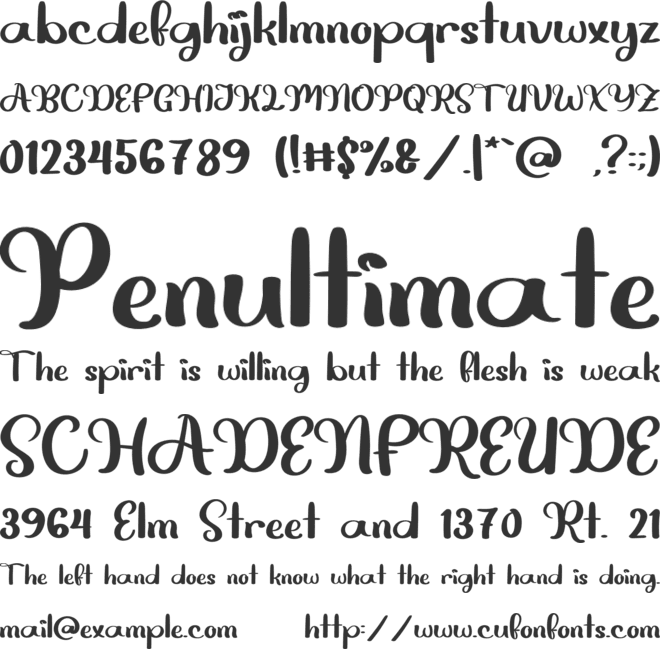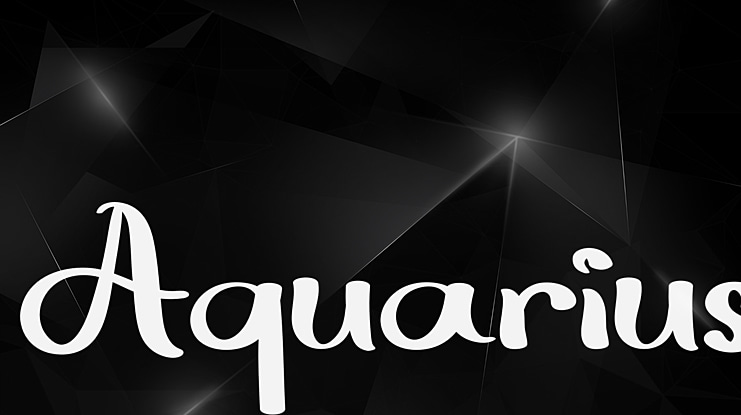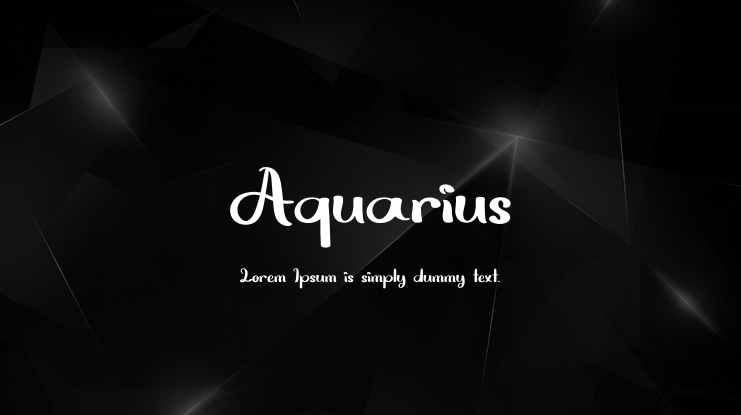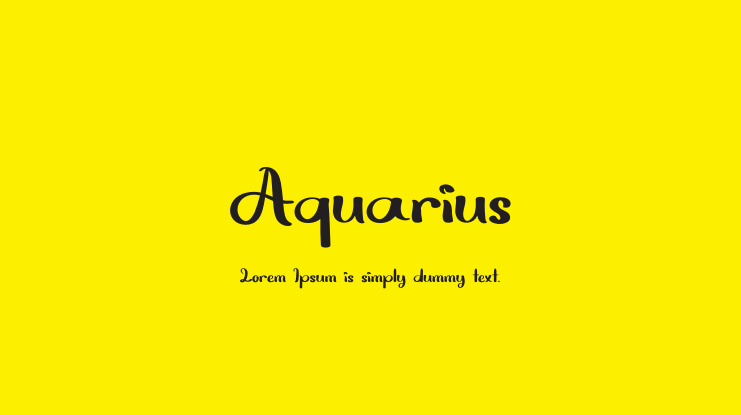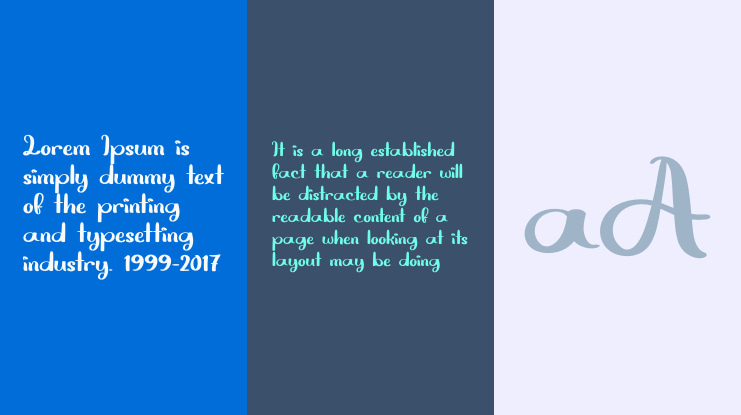
Aquarius Font
Aquarius is a beautiful and bold script font, that exudes elegance and class. This font was particularly crafted for those who need a beautiful and refreshing look to their designs.